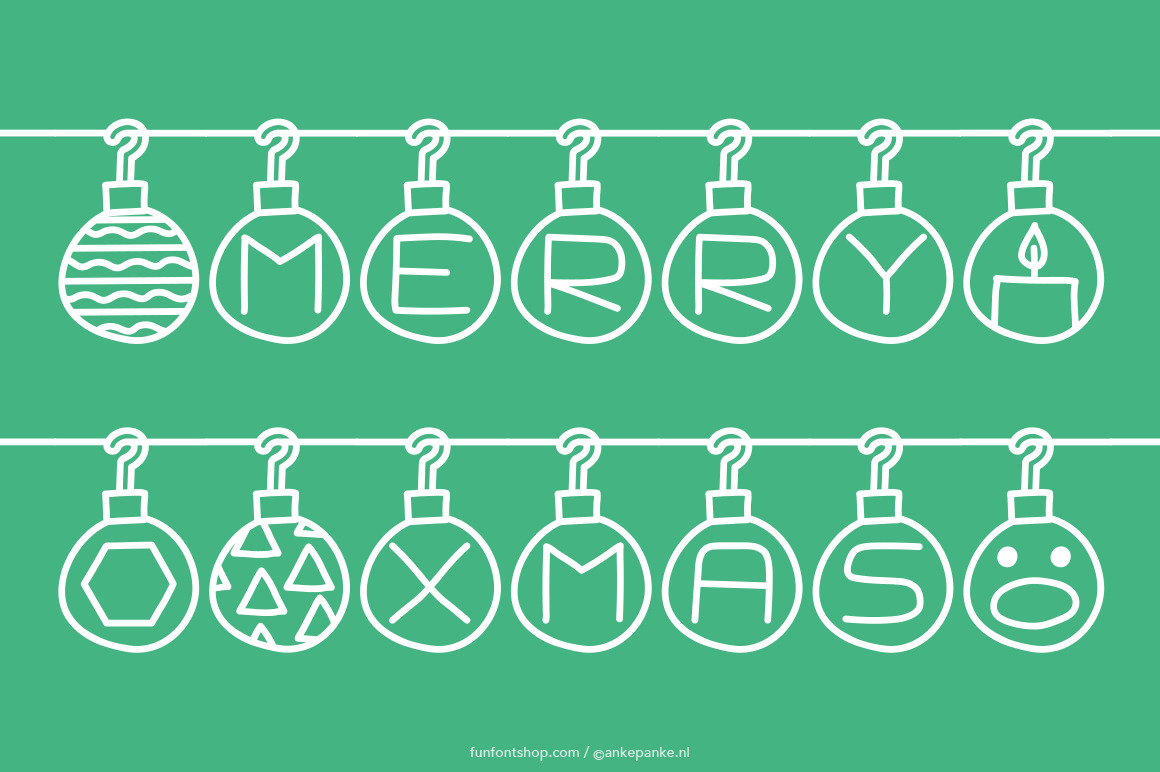
Merry Xmas Font
Say it with christmas ornaments! The space is a piece of twine, so when you type, the ornaments (and text) are connected. This font is created digitally, so big or small: it's always clean.
- About 50 different illustrated christmas ornaments
- Uppercase and numbers included